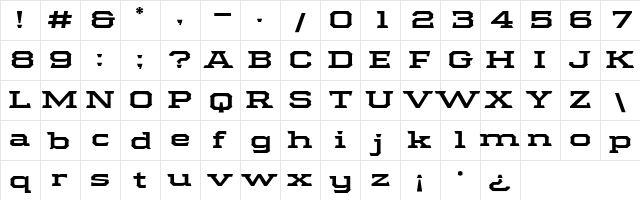
Samton Extra Extended Bold
| Foundry | Ilham Herry Type Supply |
| Designer | Ilham Herry |
Design Context for Samton Typeface
Samton is a composed and adaptable typeface that performs quietly and consistently across a wide range of design contexts. The heavy weight commands attention and anchors typographic hierarchies.